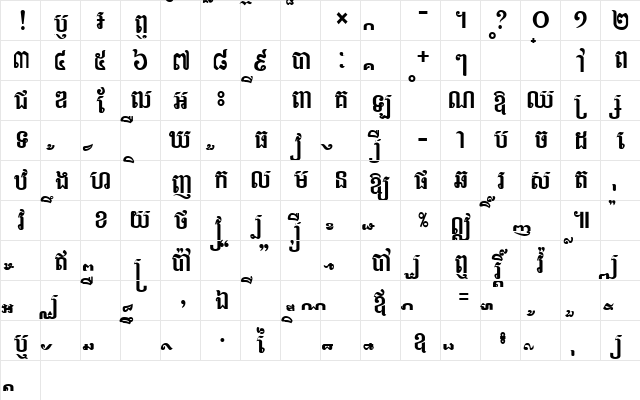
Taprom New Normal
Design Context for Taprom New Typeface
Taprom New takes a measured approach to typography — its balanced proportions and neutral character make it a reliable workhorse for both digital and print work.